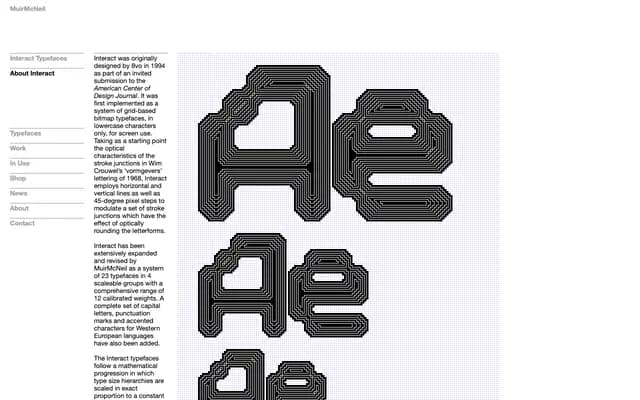
Interact
Muirmcneil · 8vo · 1994
A grid-based bitmap typeface system originally designed by 8vo in 1994, expanded by MuirMcNeil into 23 scaleable faces across four pixel-resolution groups and 12 calibrated weights.
Originally conceived by the design collective 8vo for the American Center of Design Journal, Interact takes its optical logic from Wim Crouwel's 1968 'vormgevers' lettering, using horizontal, vertical and 45-degree pixel steps to simulate rounded stroke junctions within a strict bitmap grid. MuirMcNeil expanded the system from a lowercase-only screen face into 23 typefaces across four resolution scales (06, 04, 03 and 02), each proportionally calibrated so bitmap contours align consistently when type sizes follow the system's mathematical hierarchy. Capital letters, punctuation and Western European accented characters have been added to complete the character set.
Interact is built from a grid-based bitmap system using horizontal, vertical and 45-degree pixel steps to optically round letterforms, making it a display typeface rooted in screen-resolution bitmap construction rather than any conventional serif or sans-serif tradition.